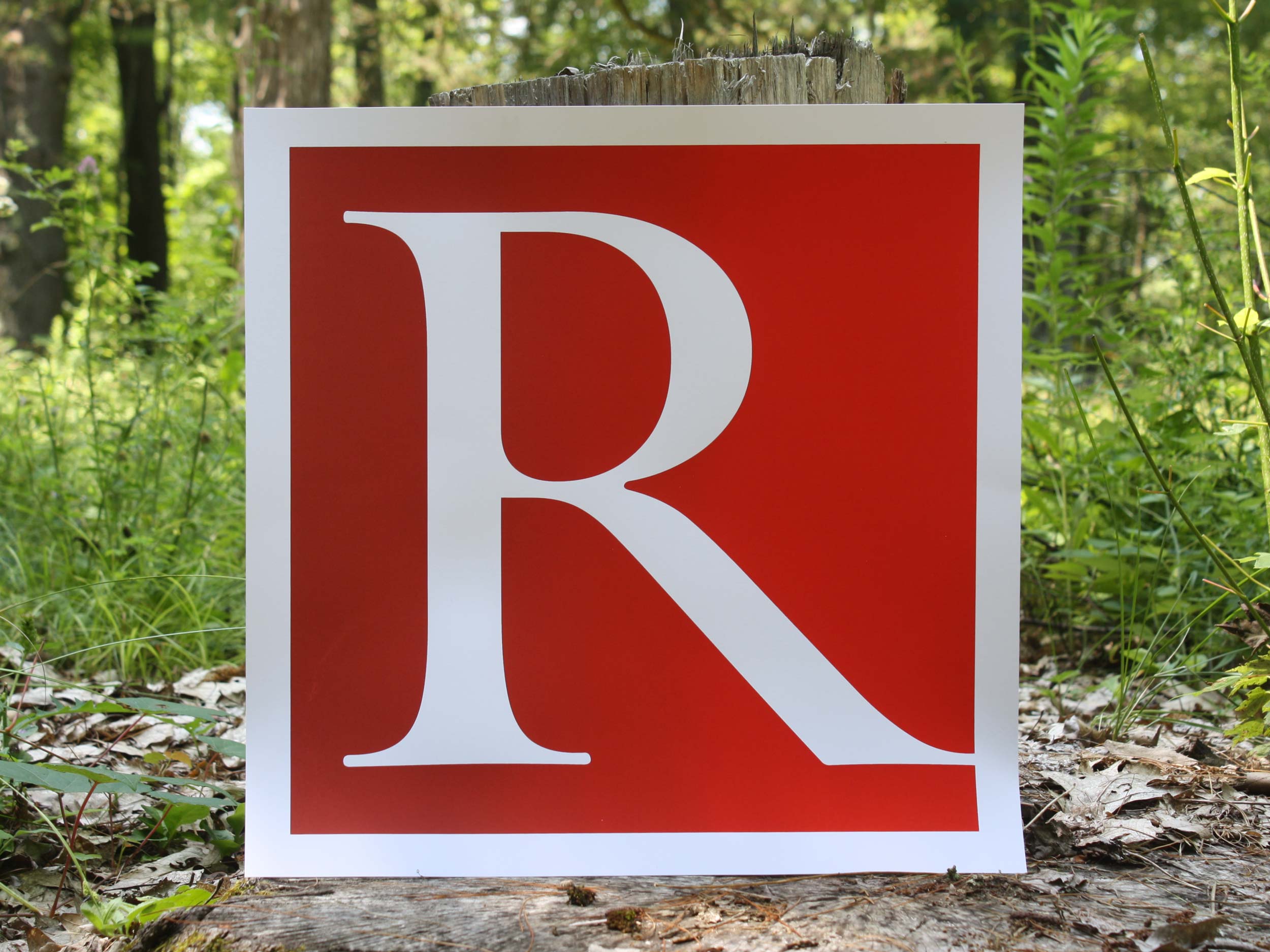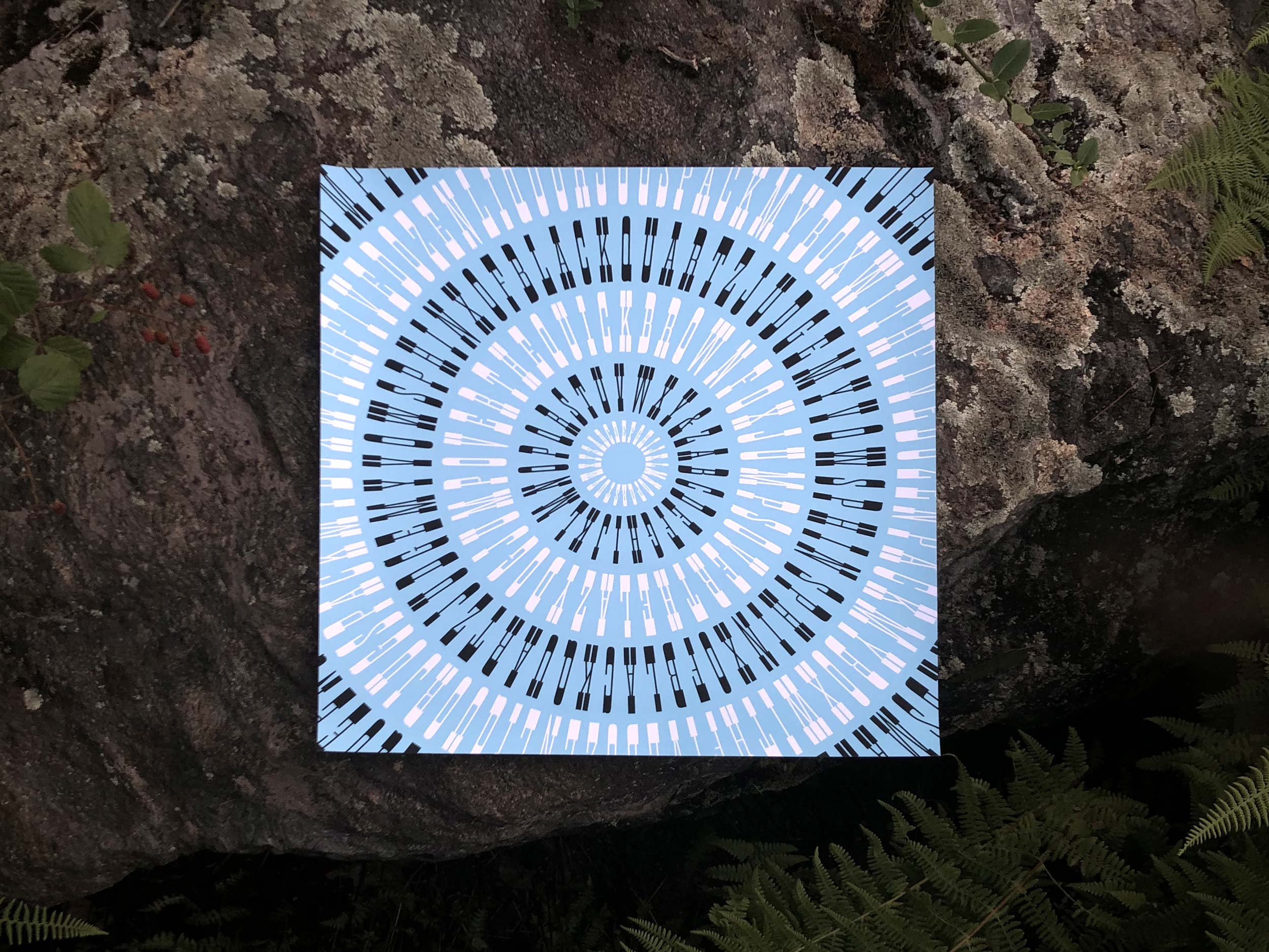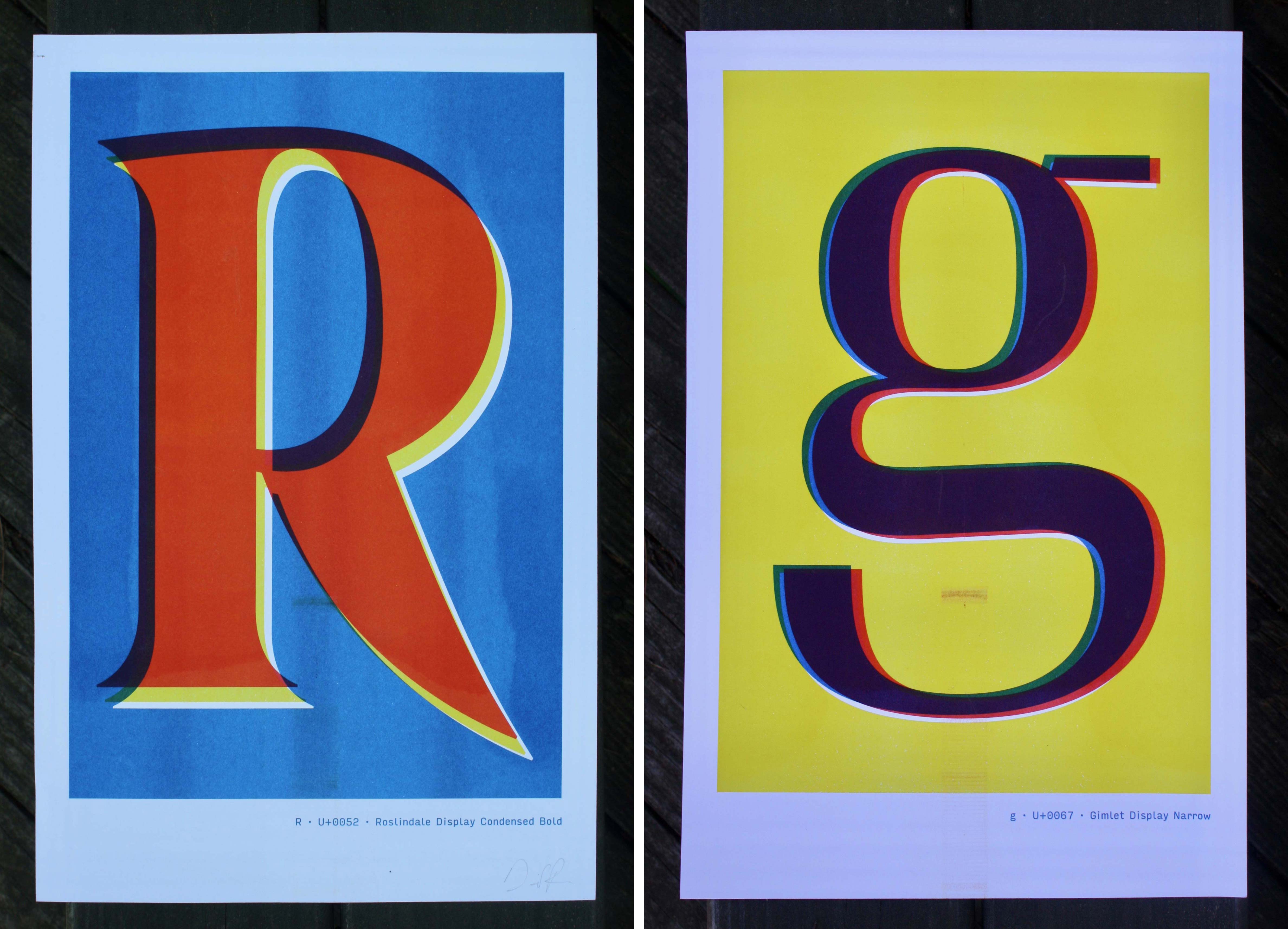
Fit Poster
This poster uses Fit’s squarest style to display the legendary Sator Square, an ancient word square whose five Latin words can be read in any direction. Its vowels are in red and its consonants are in black. The poster is 18″ × 18″ (45.72cm × 45.72cm), and was silkscreened by The Headlight in Providence, RI.
Pappardelle Poster
This poster uses Pappardelle to set pangrams in concentric circles of various sizes. Even as the font size changes, Pappardelle’s thin vertical stems stay the same thanks to its variable contrast axis. The poster is 18″ × 18″ (45.72cm × 45.72cm), and was silkscreened by The Headlight in Providence, RI.
Map Roman Poster
It’s Map Roman’s long-legged capital R, set against a split fountain of deep reds. The leg on the R is so long that it extends into the margin, adding complexity to the figure/ground relationship. The poster is 18″ × 18″ (45.72cm × 45.72cm), and was silkscreened by The Headlight in Providence, RI.
Glyph risograph posters
Single glyph risos
This pair risograph prints feature distinctive glyphs from my typefaces Roslindale and Gimlet. As with many Risograph prints, they have super-bright colors and roller marks. Each poster is 11″ × 17″ (27.94cm × 43.18cm), and was printed by Clatter Press in Columbus, OH.
Update! This collection now includes a bonus lowercase alphabet from Roslindale Ultra, printed by Visual Issues in Los Angeles, CA.